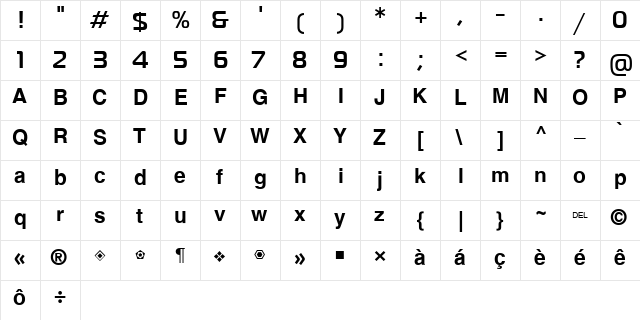
Hacen Saudi Arabia Regular
| Foundry | Muhammad Hacen |
| Designer | Muhammad Hacen |
Design Context for Hacen Saudi Arabia Typeface
Hacen Saudi Arabia offers clean, dependable letterforms without strong stylistic allegiance, making it a practical choice for designers who need flexibility.